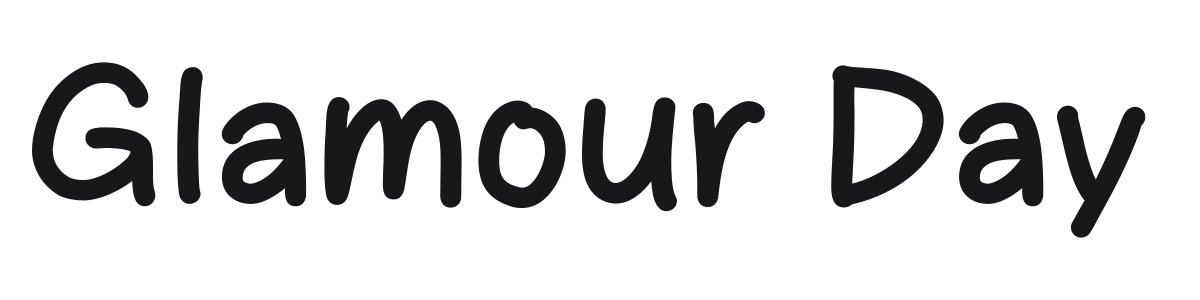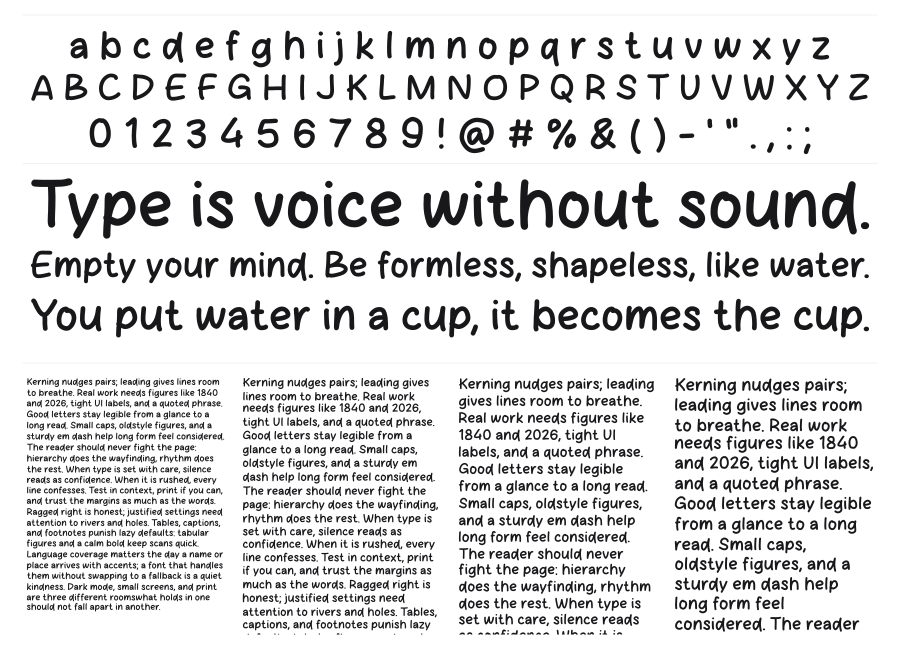
Glamour Day
Glamour Day is a bold, rounded handwritten font with a relaxed, natural energy. Its slightly irregular strokes and soft terminals give it a genuine hand-drawn feel without looking rough or unpolished. It works well for branding, packaging, and any context that calls for warmth and personality.